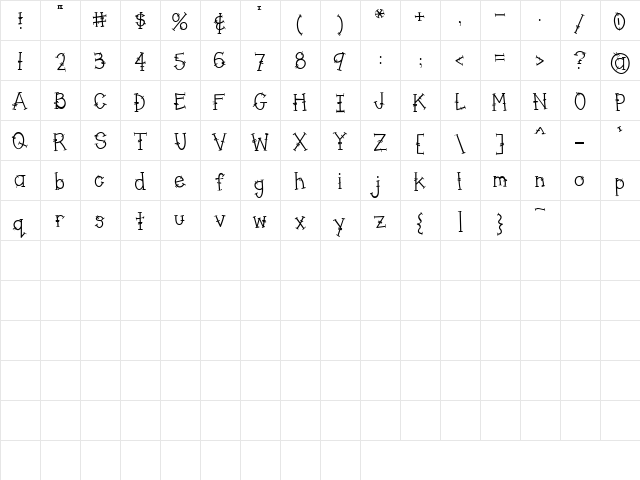
Doodle Double Dash Regular
Design Context for Doodle Double Dash Typeface
Doodle Double Dash is a composed and adaptable typeface that performs quietly and consistently across a wide range of design contexts.